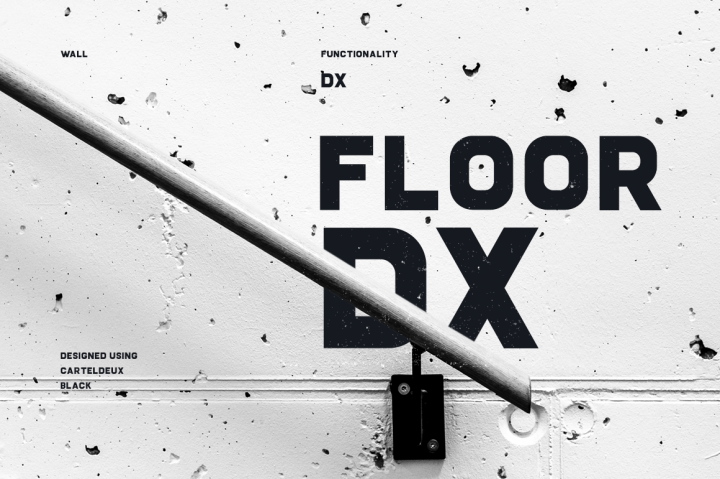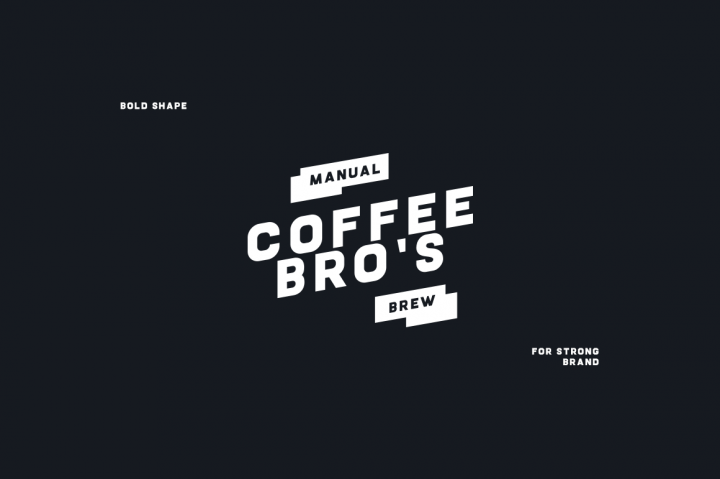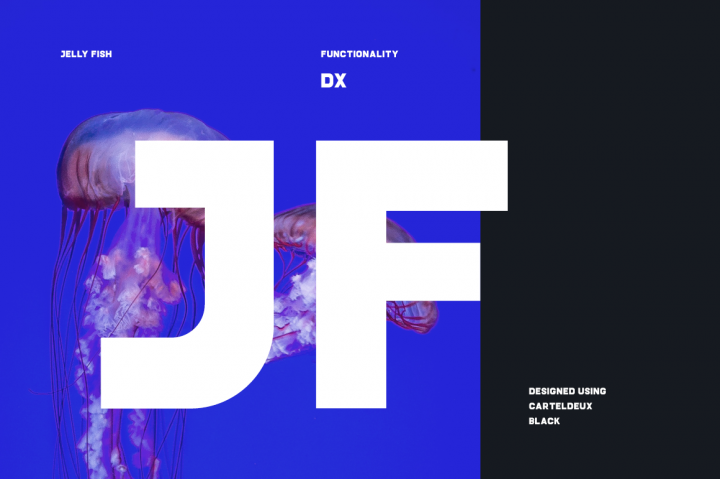
Cartel Deux Black
Cartel Deux Black Font
Cartel Deux is a new typeface by Tyfomono™. It’s the combinations fonts include a script and bold style and also have a different style between Smooth & Sharp Script. To complete the set of fonts, Cartel Deux offers 5 style in the family.